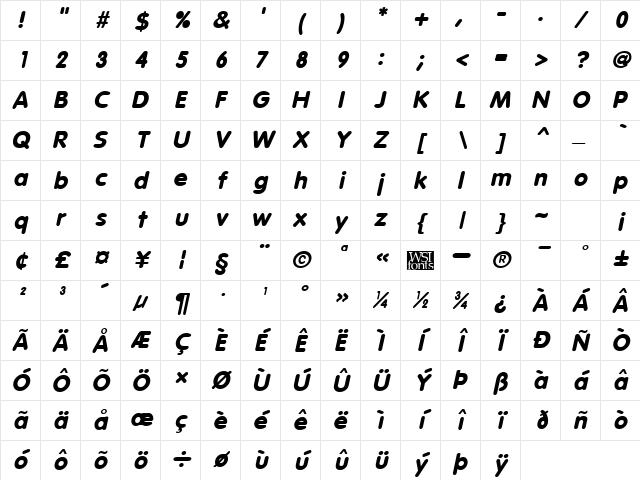
Vagabond Bold Italic
Vagabond Family
Vagabond Bold Italic
Design Context for Vagabond
Vagabond is a composed and adaptable typeface that performs quietly and consistently across a wide range of design contexts. The slanted form adds forward momentum and visual energy. Its bold stroke weight gives it real presence on the page.
Pro Tip: Use Vagabond for emphasis, pull quotes, and subheadings where its slanted energy can add rhythm to the layout.